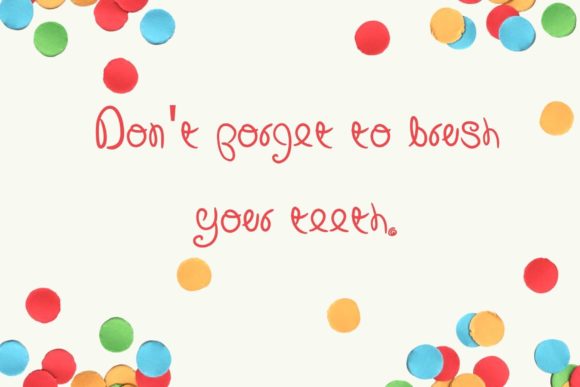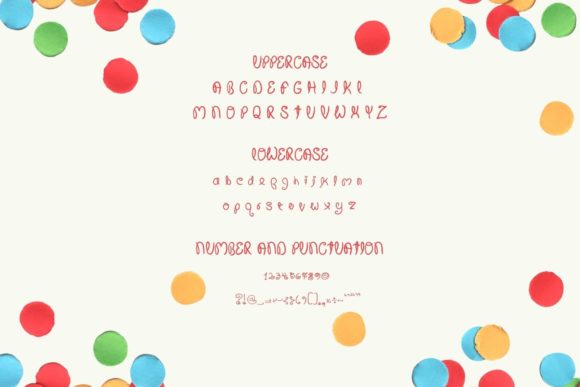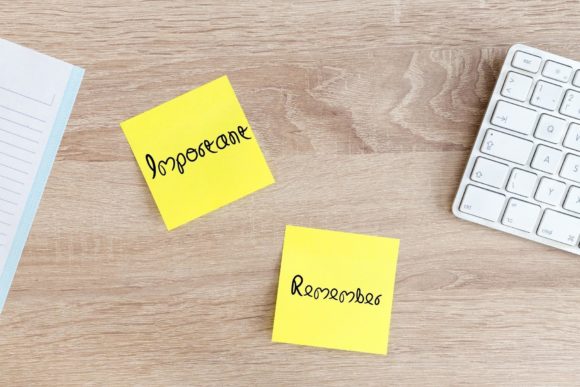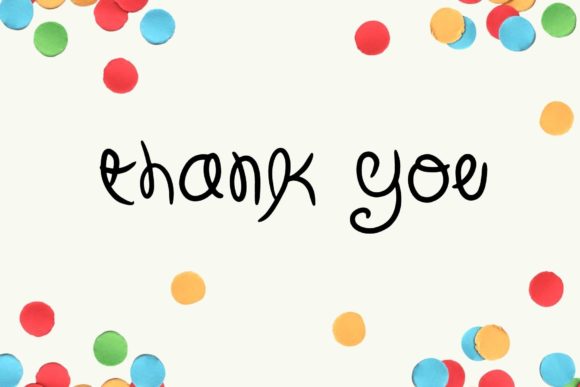
Candy Font
About Candy Font
Candy is a delightful free-flowing script font designed to bring a sense of charm and high-quality vibes to a variety of creative projects. Tailored for applications such as packaging products, invitation cards, flyers, mockups, event posters, and more, Candy offers a beautiful and balanced character that seamlessly integrates into a wide design pool.
The free-flowing script style of Candy adds a dynamic and fluid quality to your text, making it particularly well-suited for projects that require a touch of whimsy and spontaneity. Whether you’re working on playful packaging, stylish invitations, or eye-catching event posters, Candy’s versatility shines through, enhancing the visual appeal of your designs.
The beautiful and balanced character of Candy contributes to its adaptability, making it suitable for a diverse range of design applications. Whether your project demands a formal or more casual approach, Candy’s aesthetic appeal allows it to complement various design concepts with ease.
Candy’s high-quality vibes make it an excellent choice for creating a polished and visually appealing presentation for your products or events. The script font adds a touch of elegance and authenticity, enhancing the overall perception of your design.
Given its versatility, Candy fits seamlessly into different design elements, ensuring its compatibility with mockups, flyers, and more. This flexibility makes it an accessible and user-friendly choice for both seasoned designers and those exploring creative projects.
In conclusion, Candy is more than just a font; it’s a versatile and charming tool that enhances the visual appeal of your designs. Its free-flowing script, beautiful character, and high-quality vibes make it suitable for a broad range of projects, allowing you to infuse your creativity with a touch of whimsical elegance. Consider using Candy for your packaging, invitations, flyers, mockups, event posters, and any project where you want to convey a sense of high-quality charm.